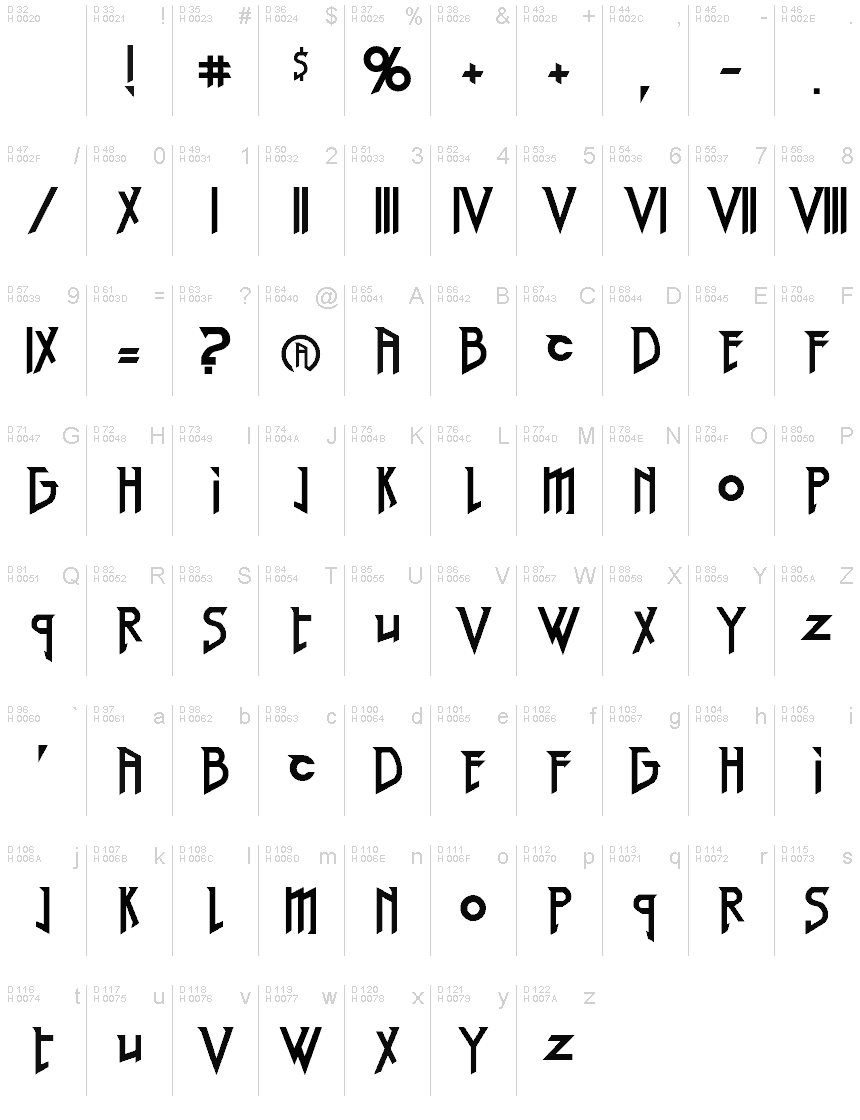
Red Right Hand
Red Right Hand, crafted by Blambot, stands at the crossroads of tradition and modernity, offering a gothic type with a contemporary twist. With its semi-light weight and extra-condensed width, this font exudes an elegant yet commanding presence that demands attention. The sharp lines and angular contours lend it a striking appearance that is both arresting and functional.
This typeface's uniqueness lies in its ability to merge the gothic aesthetic with the clean minimalism of modern design. Red Right Hand is not merely a font; it's a statement piece that can elevate any creative project. Whether it's used in branding, editorial design, or evocative advertising campaigns, its distinct style ensures that your message is delivered with impact.
Red Right Hand’s versatility makes it suitable for an array of applications where sophistication is paramount yet boldness cannot be compromised. Embrace the allure of this font to add depth and character to your design narratives.
This typeface's uniqueness lies in its ability to merge the gothic aesthetic with the clean minimalism of modern design. Red Right Hand is not merely a font; it's a statement piece that can elevate any creative project. Whether it's used in branding, editorial design, or evocative advertising campaigns, its distinct style ensures that your message is delivered with impact.
Red Right Hand’s versatility makes it suitable for an array of applications where sophistication is paramount yet boldness cannot be compromised. Embrace the allure of this font to add depth and character to your design narratives.